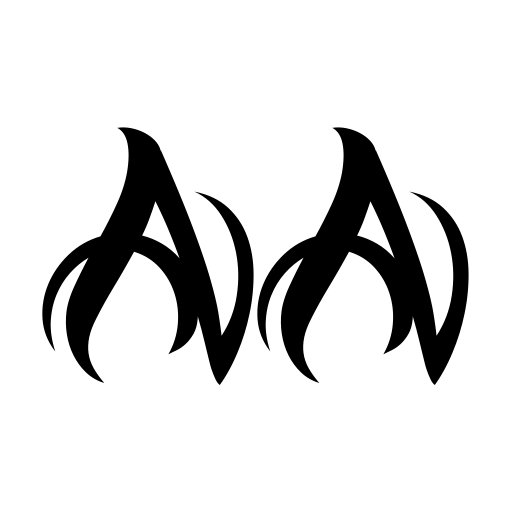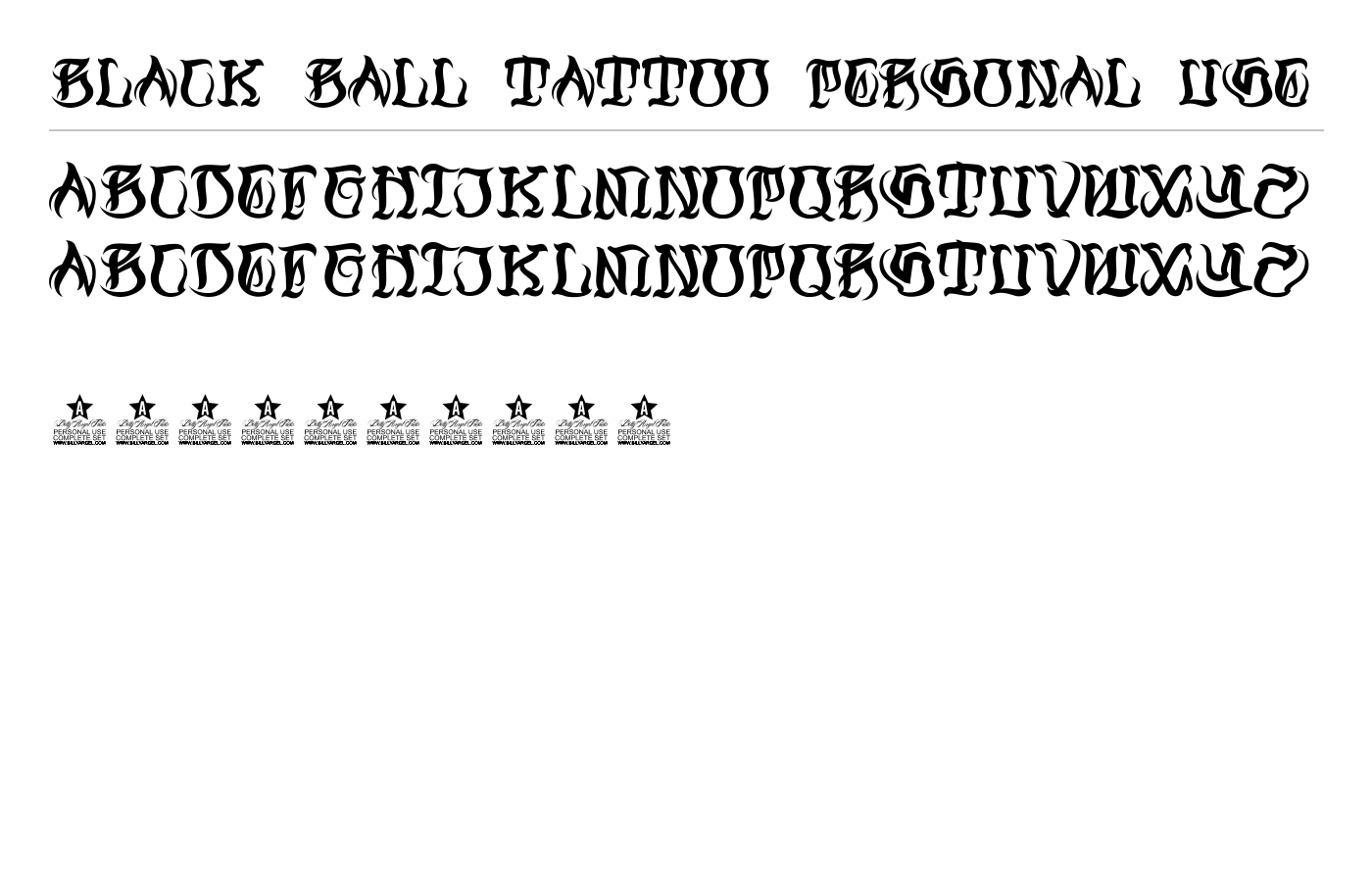
Black Ball Tattoo Personal Use is a bold, decorative serif font with a vintage tattoo-inspired look, featuring stylized, sharp letterforms with high contrast between thick and thin strokes. Its intricate, heavy shapes and unique curves give it a rebellious, edgy personality, ideal for designs that want to evoke a sense of toughness and artistry. This font works best for logos, posters, and branding that seek a striking, unconventional style with a bold statement.
Black Ball Tattoo Personal Use Font
About Black Ball Tattoo Personal Use Font